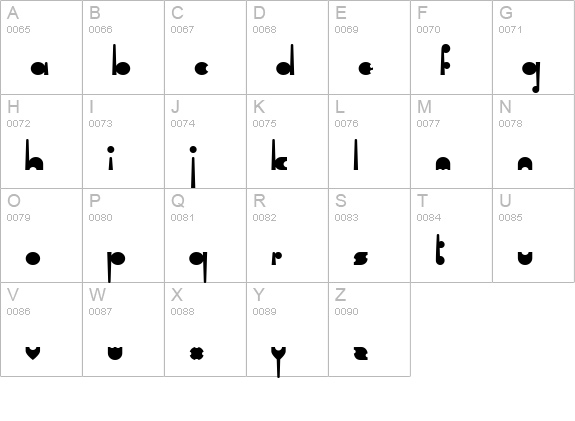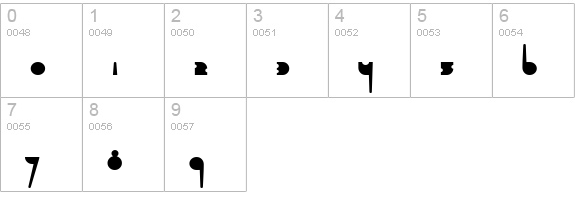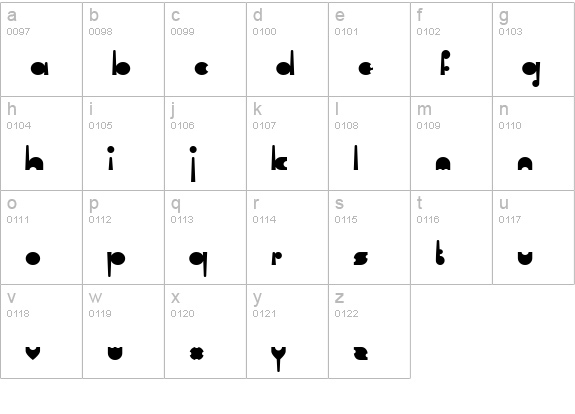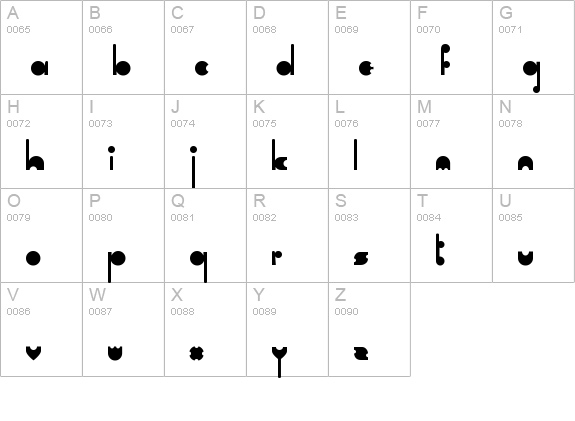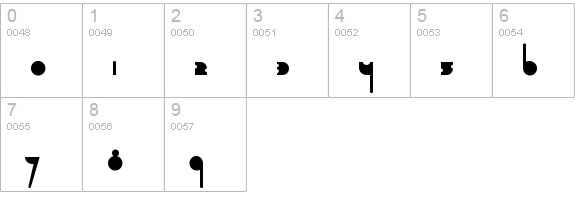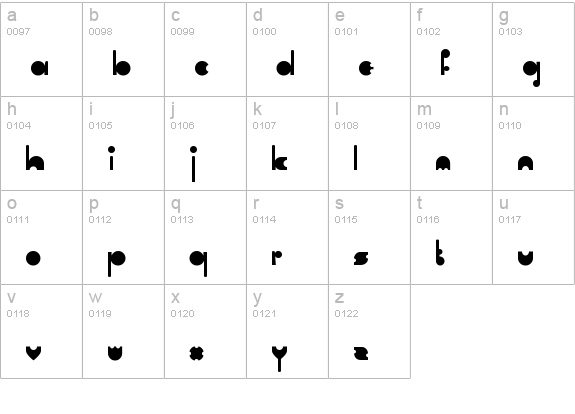
Cartel Font Details
Cartel font is a stylish and versatile typeface that exudes modernity and sophistication. Its sharp edges and clean lines make it perfect for a wide range of design projects, from logos to posters to branding materials. With its bold and distinctive look, Cartel font demands attention and leaves a lasting impression. What sets Cartel font apart is not just its striking design, but also the fact that it is available for free download at FontsMarket.com. This means that you can add this eye-catching font to your collection without having to worry about any costs. Whether you're a professional designer looking to enhance your projects or an enthusiast seeking to experiment with new fonts, Cartel font is a valuable addition that won't break the bank. Embrace the modern and dynamic aesthetic of Cartel font, and elevate your designs with its unique flair. Download it for free today at FontsMarket.com and unleash your creativity with this stunning typeface.